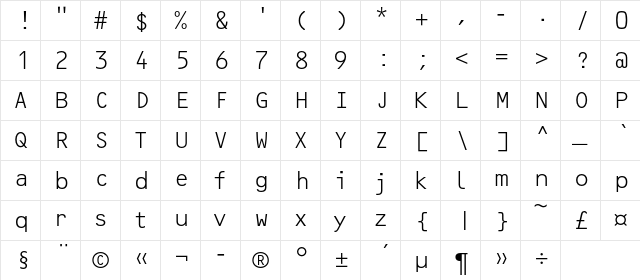
OCRF-LightC Regular
Design Context for OCRF-LightC Typeface
OCRF-LightC is a composed and adaptable typeface that performs quietly and consistently across a wide range of design contexts. The delicate stroke weight brings airiness and refinement to layouts.